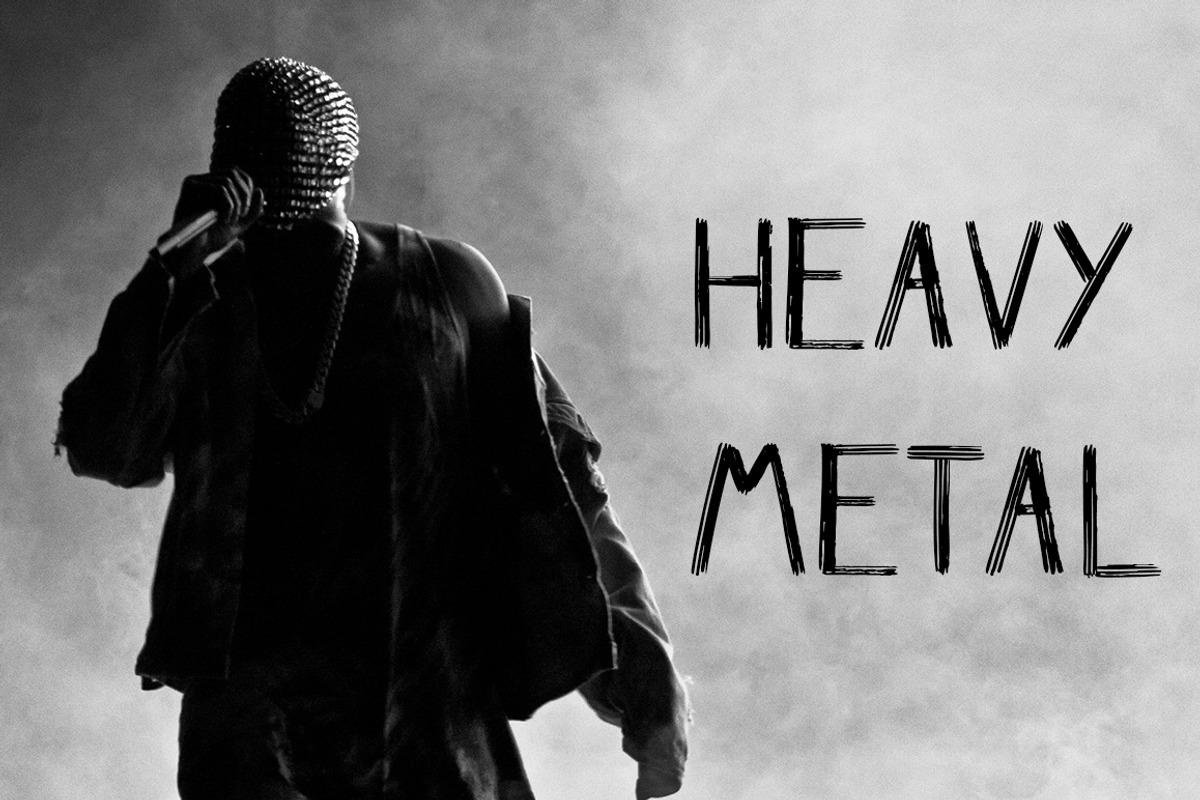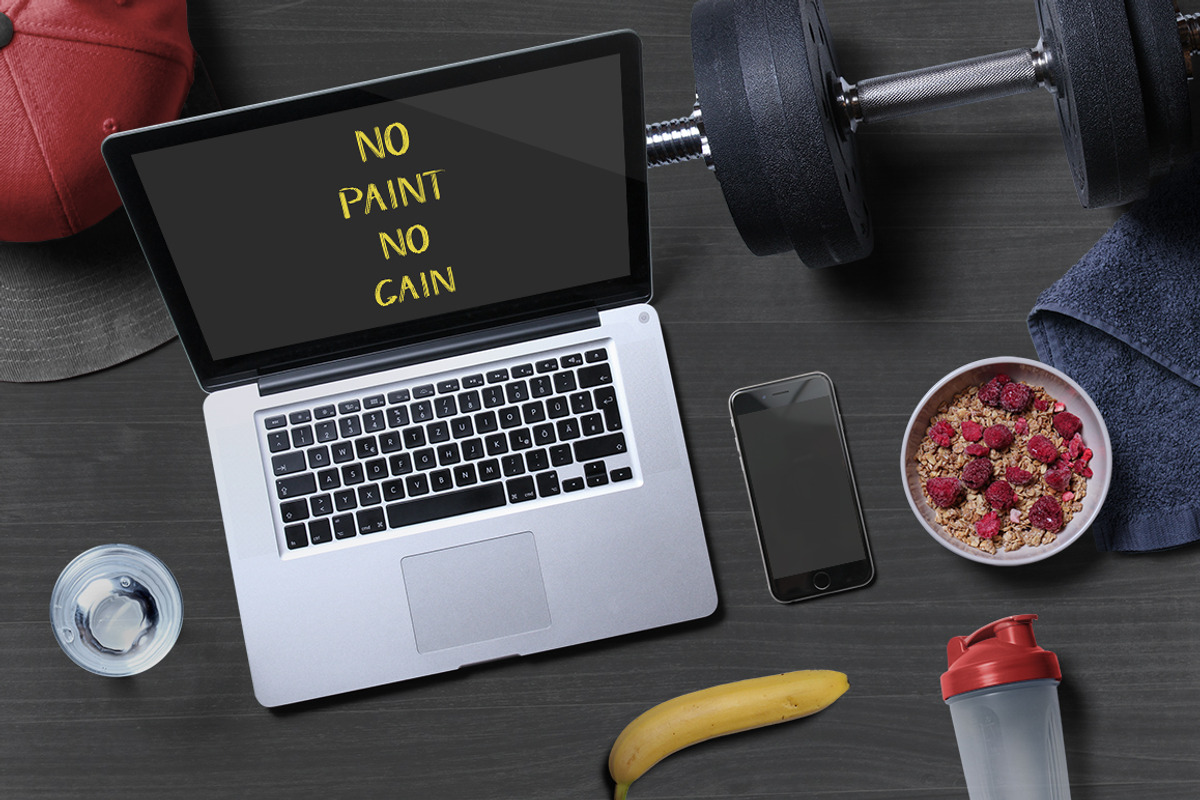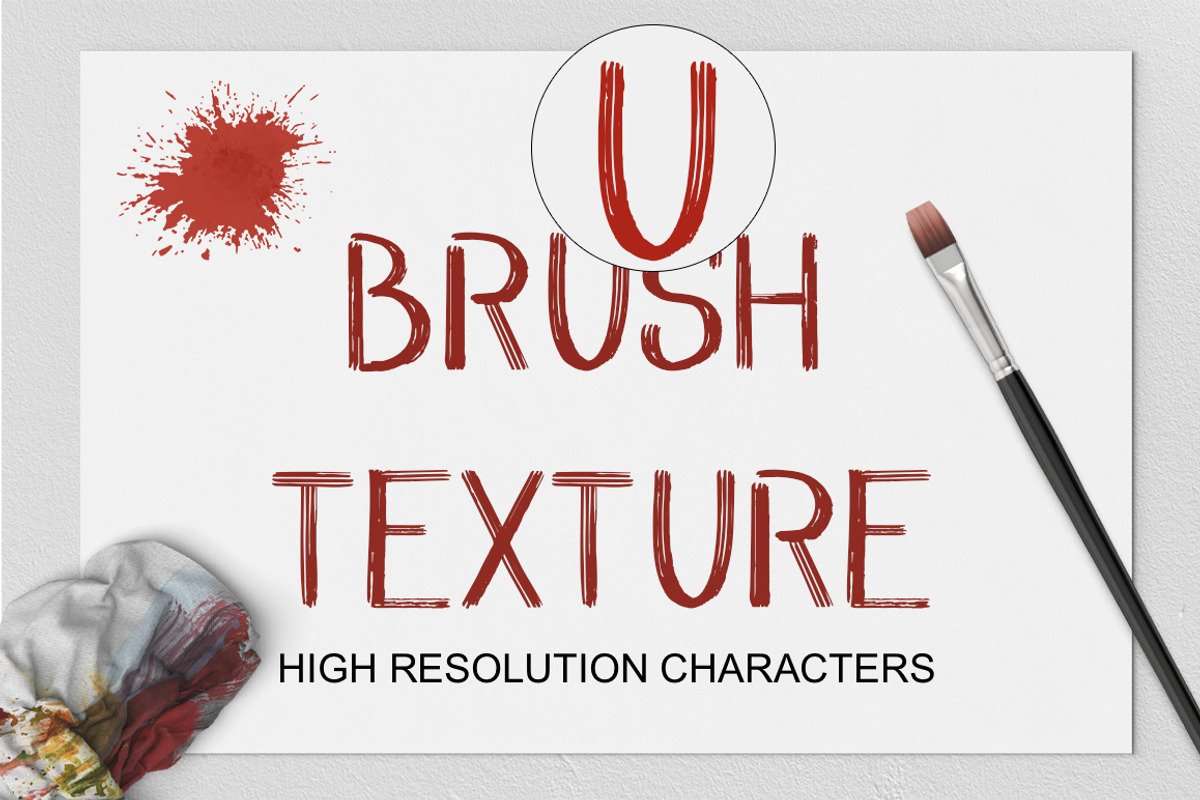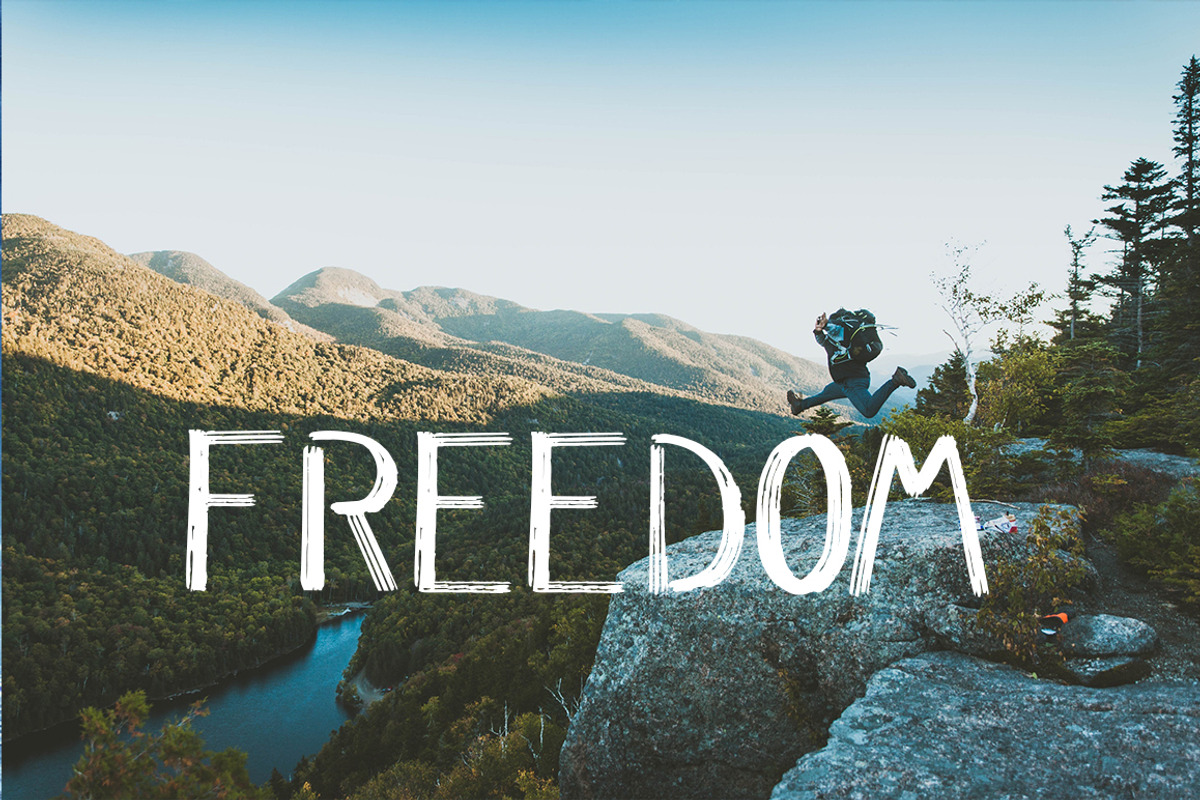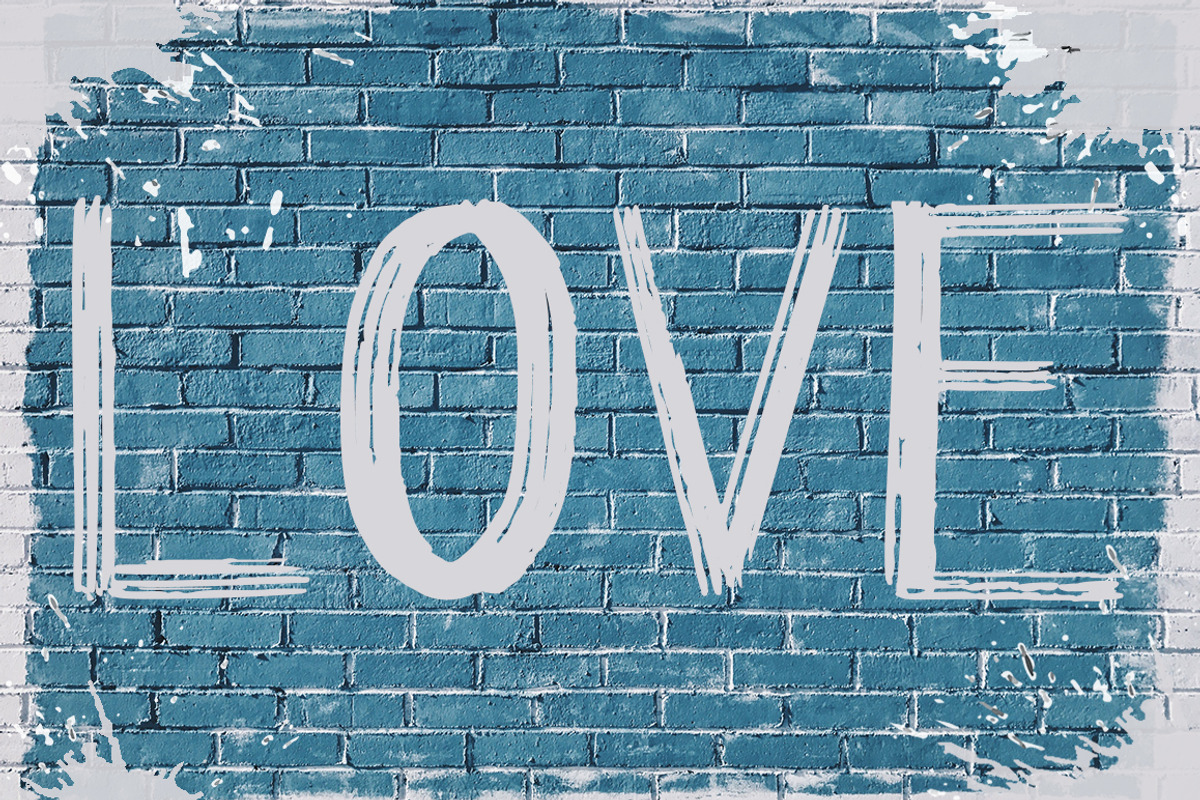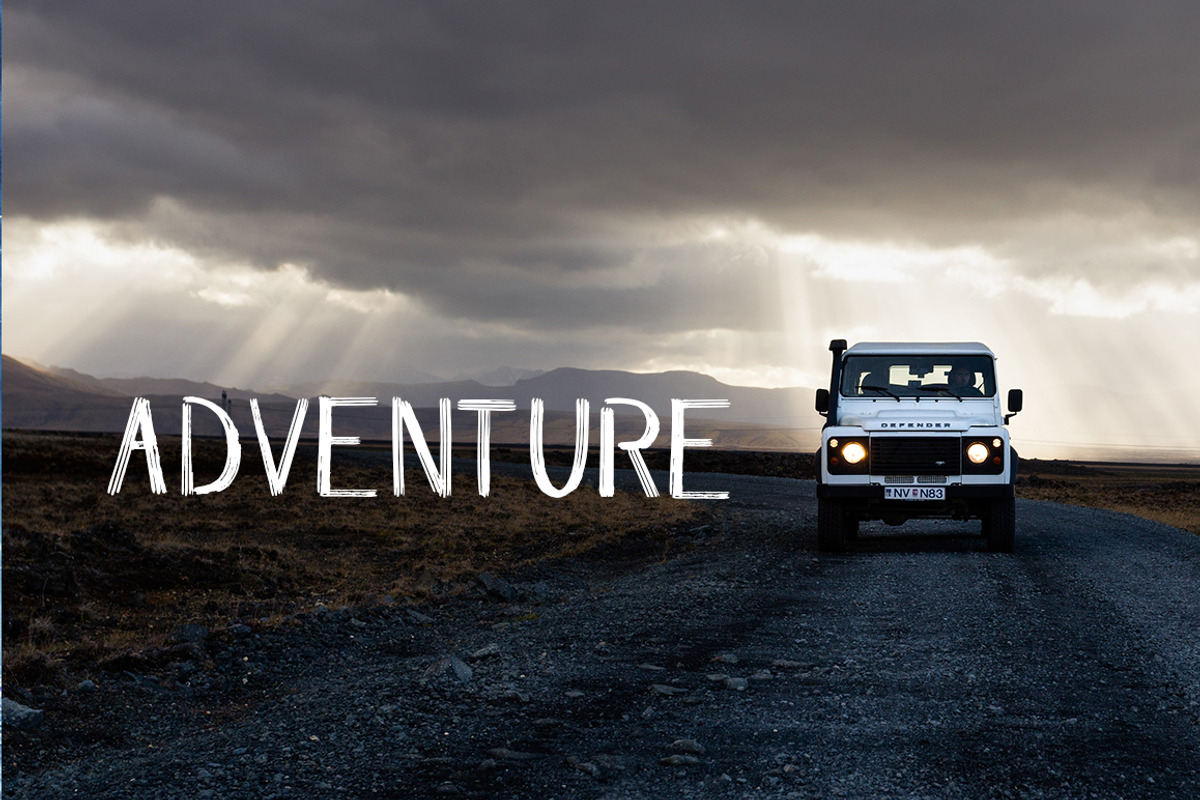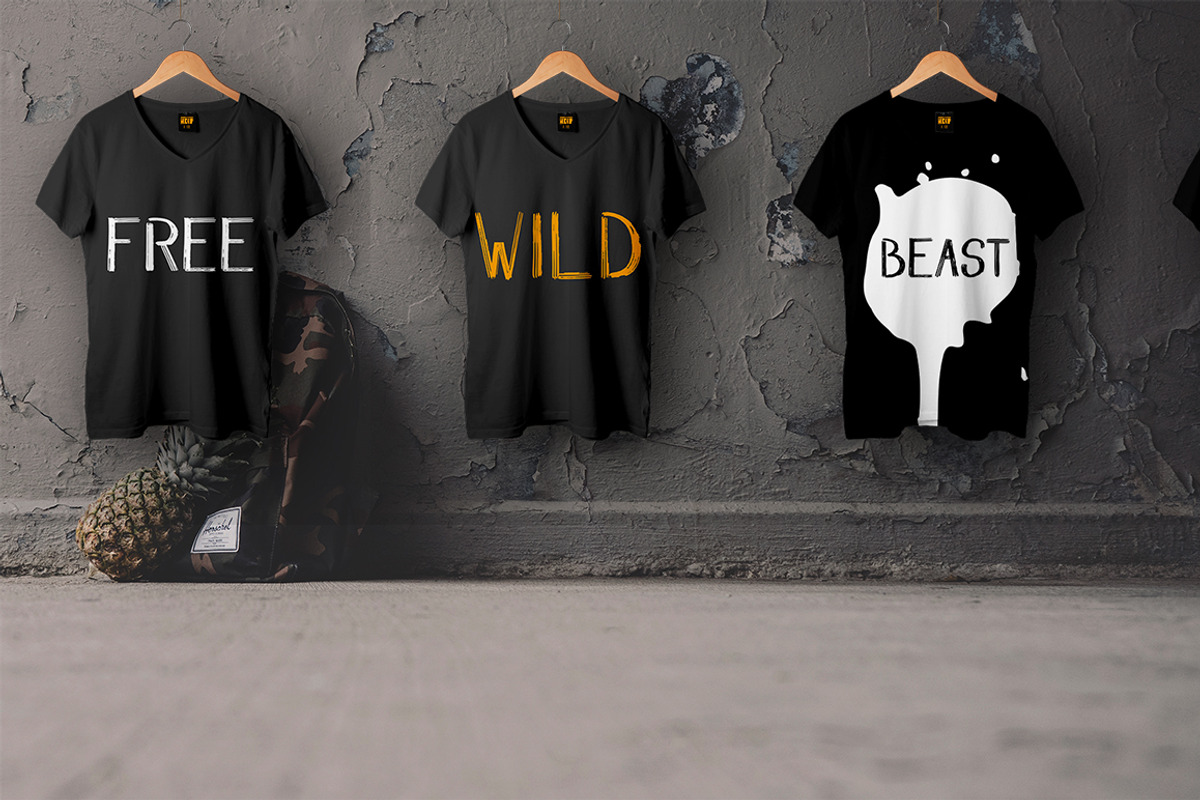
WILD & FREE Brush Font
WILD&FREE is a green and wild street brush font. With strokes and sharp details.
WILD&FREE ideal for design of posters and banners, logos, printing on T-shirts and sweatshirts, or anything which needs a typographic turbo-boost.
all-capitals brush font which has a complete set of alternate A-Z characters.
WILD & FREE Brush Font by Gennadi Digital Studio fits naturally into Branding, posters, packaging, typography.